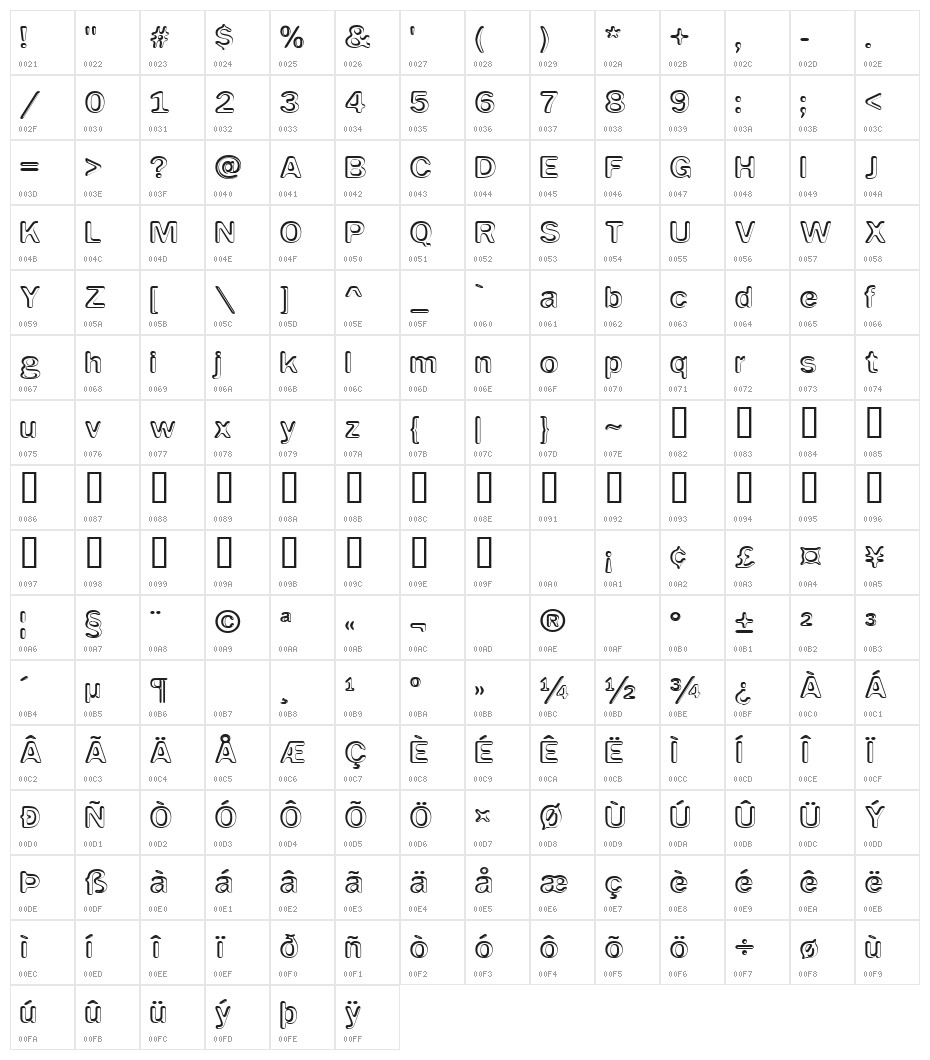
Impressed Metal Font
Impressed Metal Description
This font features a bold, outlined style with a modern and industrial feel. The characters are uppercase and lowercase letters, numbers, and a variety of special symbols. Each character has a distinct, three-dimensional appearance, reminiscent of metalwork or embossed designs. The strokes are consistent in width, providing a uniform and cohesive look. The font's design is both eye-catching and versatile, suitable for various creative applications. Its unique style makes it ideal for projects that require a strong visual impact.
Proposed ProjectsIdeal for branding, posters, signage, and any project requiring a strong visual impact.